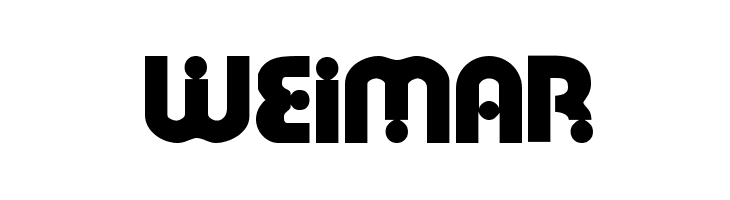
A bold, geometric font with circular decorative elements, offering a modern and playful style.
A modern, geometric font with bold, rounded characters and a futuristic style.
A decorative font with circular motifs and geometric precision.